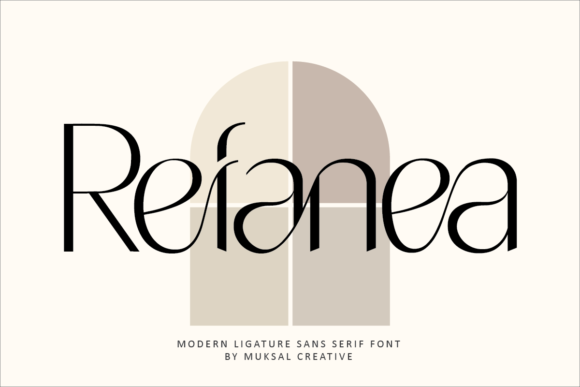
Refanea Font
Prepare to embark on a typographic journey that will leave an unforgettable mark on your designs! Introducing Refanea Font, the epitome of elegance and modernity.
Picture the perfect font for a captivating logo that commands attention, a stylish website that exudes professionalism, or eye-catching social media graphics that ignite engagement. Refanea Font embodies all this and more, meticulously crafted to elevate your projects to unparalleled heights.
As a member of the esteemed sans serif family, Refanea Font combines timeless sophistication with a contemporary twist. Its slender, elongated characters dance across the page with a graceful, almost calligraphic flair. Yet, it remains decisively modern and fresh, striking the perfect balance between classicism and innovation.
With Refanea Font at your fingertips, you'll unlock a world of creative possibilities. Design logos that radiate sophistication, websites that exude elegance, and graphic designs that turn heads. Whether you're a seasoned designer or just starting your typographic adventure, Refanea Font will empower you to create designs that captivate and inspire.
Join the design elite who have fallen head over heels for Refanea Font. Experience the transformative power of this elegant sans serif and elevate your projects to the stratosphere of excellence!